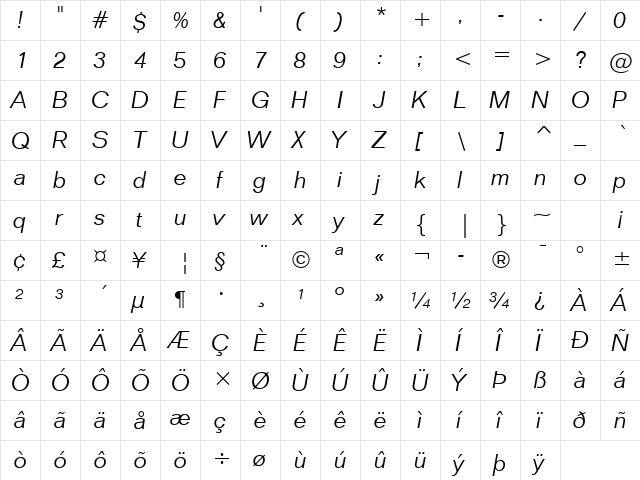
Folio Light Italic
Design Context for Folio Typeface
Folio is a composed and adaptable typeface that performs quietly and consistently across a wide range of design contexts. The slanted form adds forward momentum and visual energy. Its slender proportions lend an understated elegance to any composition.
Pro Tip: Try Folio for annotation and caption copy alongside an upright companion — the contrast in angle creates a dynamic but ordered typographic system.